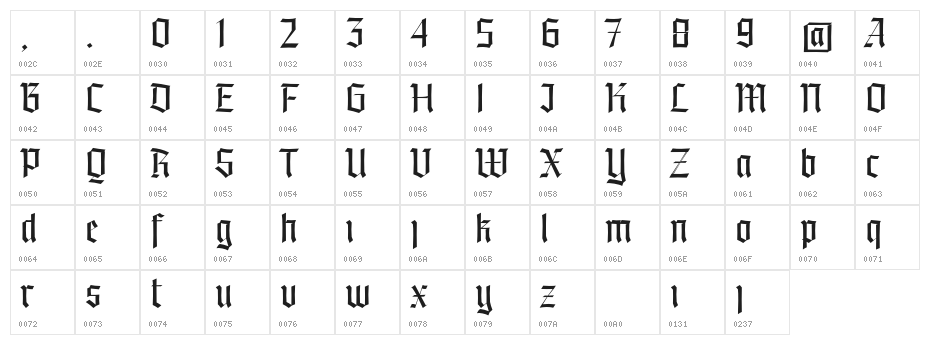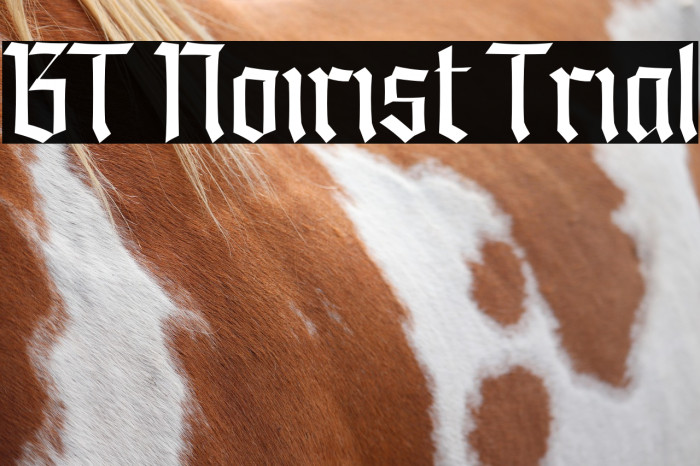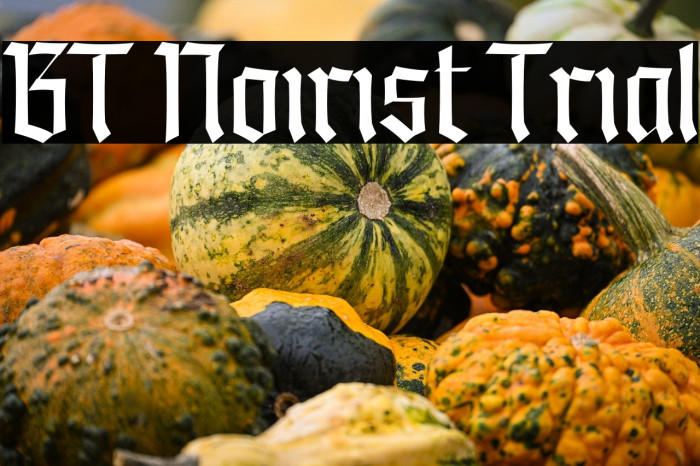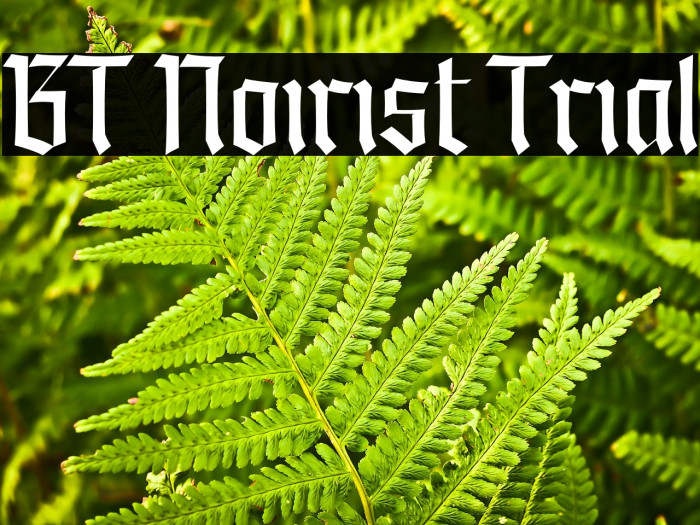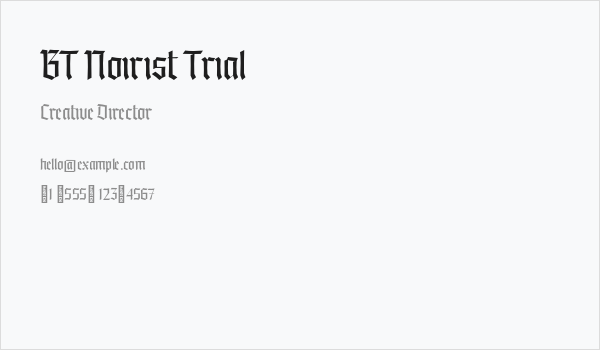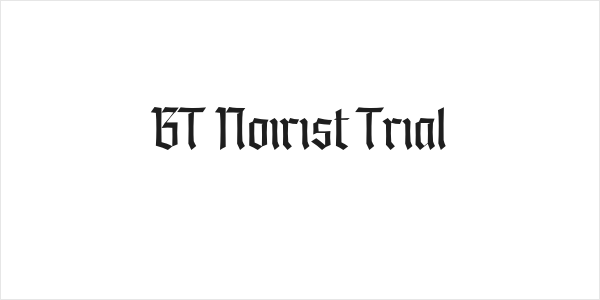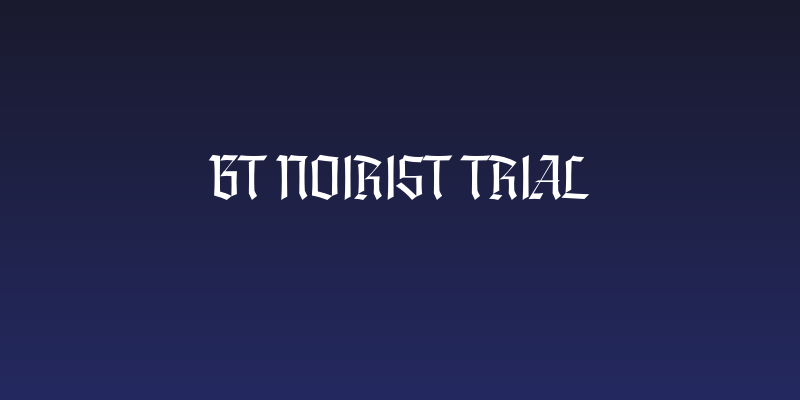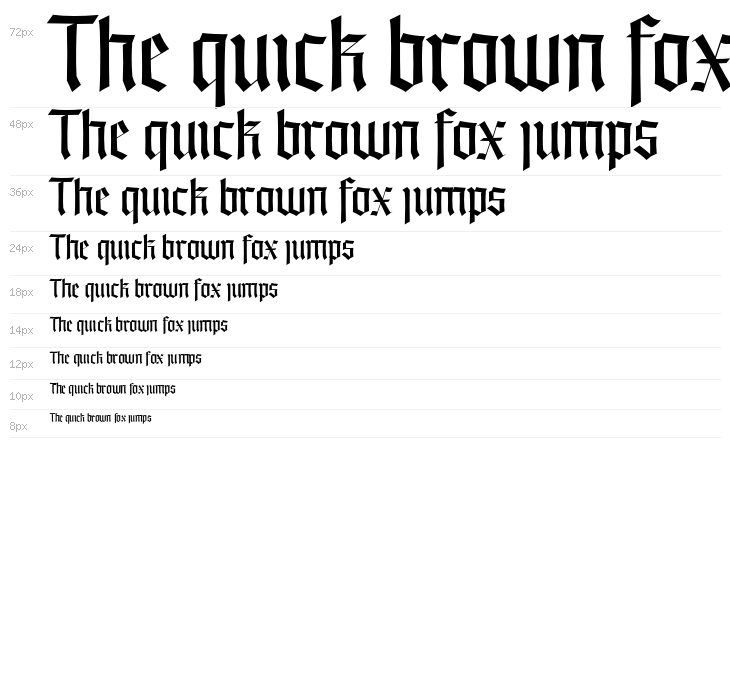
BT Noirist Trial Font
BT Noirist Trial Description
This font features a bold and angular design reminiscent of traditional blackletter styles. It combines sharp edges and pointed terminals with a modern twist, creating a striking and dramatic appearance. The uppercase and lowercase letters maintain a consistent height and width, providing a balanced look. The numerals are equally bold, with a geometric influence that enhances readability. The overall style is decorative, making it suitable for impactful headlines or artistic projects. The font's unique character is emphasized by its high contrast in stroke thickness, adding to its visual appeal.
| Use Case | Headlines, Logos, Artistic projects |
| Proposed Projects | Ideal for branding, posters, album covers, and any project requiring a dramatic and artistic touch. |